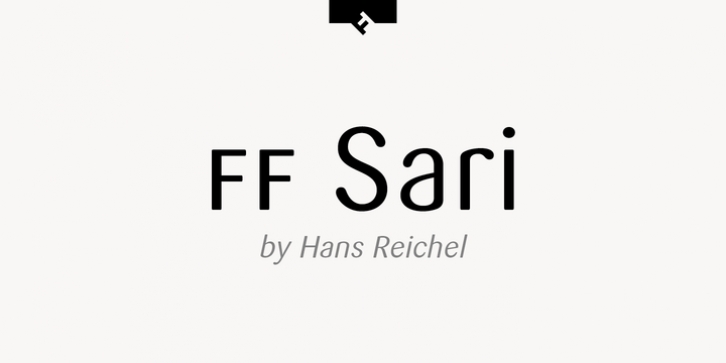
Publisher: FontFont
German type designer Hans Reichel created this sans FontFont in 1999.
The family has 12 weights, ranging from Light to Black (including italics) and is ideally suited for advertising and packaging, festive occasions, editorial and publishing, logo, branding and creative industries, poster and billboards as well as web and screen design.
FF Sari provides advanced typographical support with features such as ligatures, small capitals, alternate characters, case-sensitive forms, fractions, and super- and subscript characters.
It comes with a complete range of figure set options – oldstyle and lining figures, each in tabular and proportional widths.